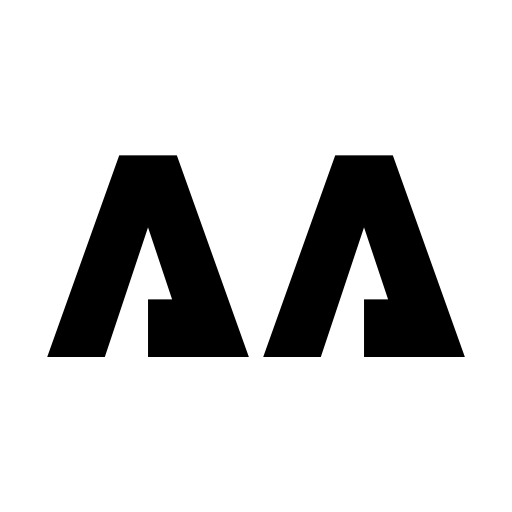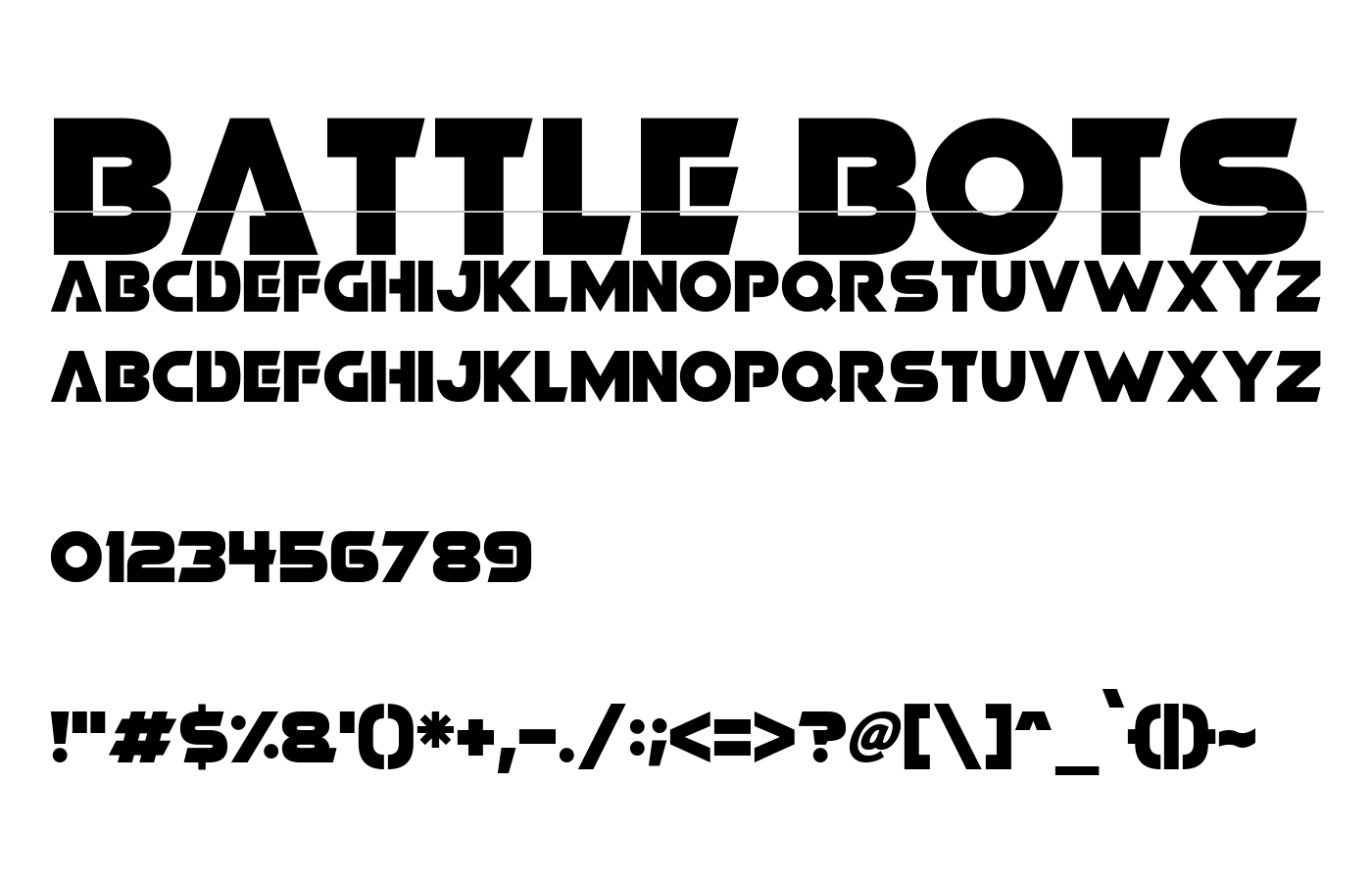
Battle Bots is a bold, geometric sans serif font with a strong, futuristic feel. Its heavy weight and sharp, angular shapes give it a powerful, aggressive personality, making it perfect for sci-fi, gaming, and tech-themed projects. This font stands out best in large headlines, logos, and posters where a striking, modern look is needed to grab attention.
Battle Bots Font